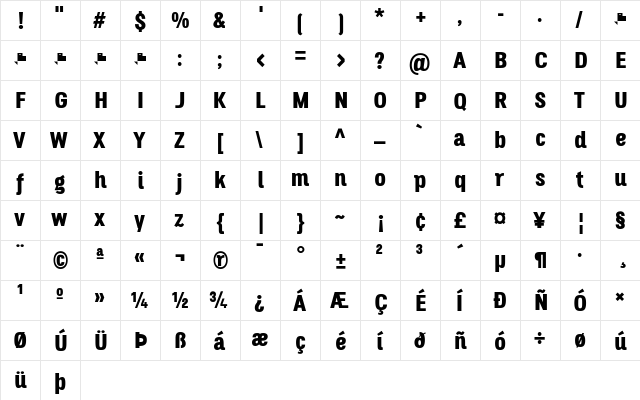
Octagen Black Black
| Foundry | deFharo |
| Designer | Fernando Haro |
Design Context for Octagen Black Typeface
Octagen Black takes a measured approach to typography — its balanced proportions and neutral character make it a reliable workhorse for both digital and print work.